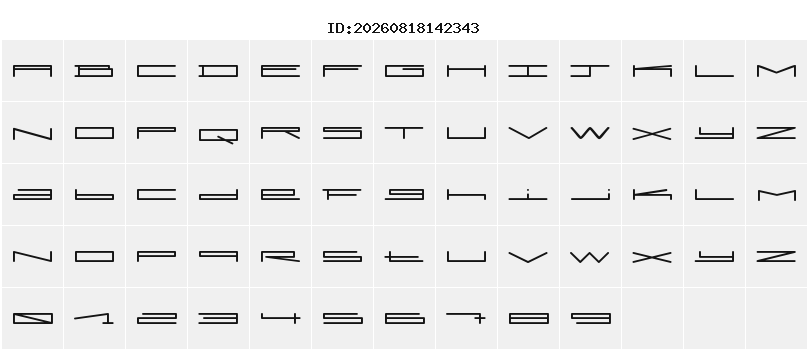
• Font Name: Slurp
• Full Font Name: Slurp
• PostScript Name: Slurp
• Copyright: Éric DJENGUÉ
• Designer: Eric DJENGUE
• Description: Slurp is designed as a font character title.
About Slurp.ttf
Slurp.ttf is a modern, elegant sans-serif font designed for ultimate readability and visual harmony. Perfect for branding, headlines, web design, and print materials.